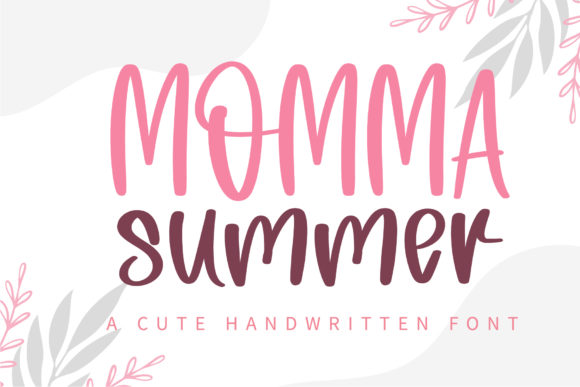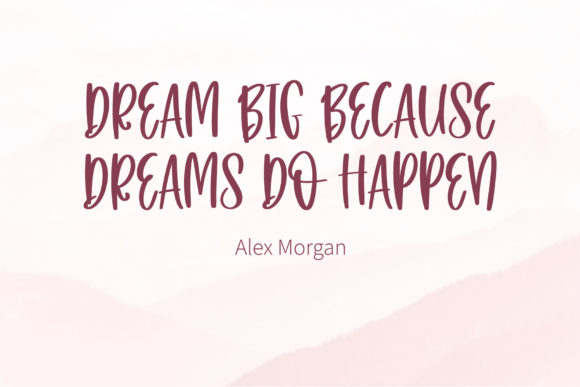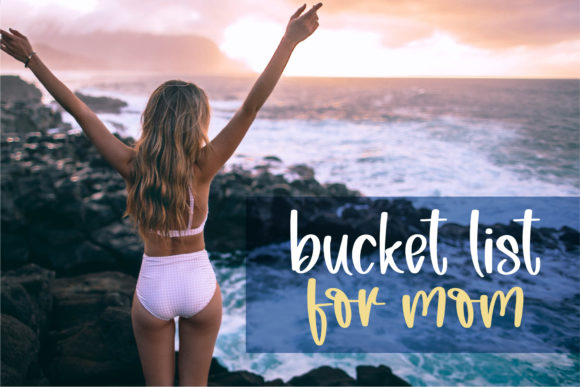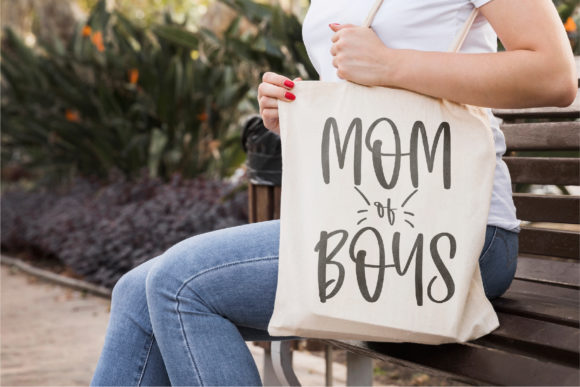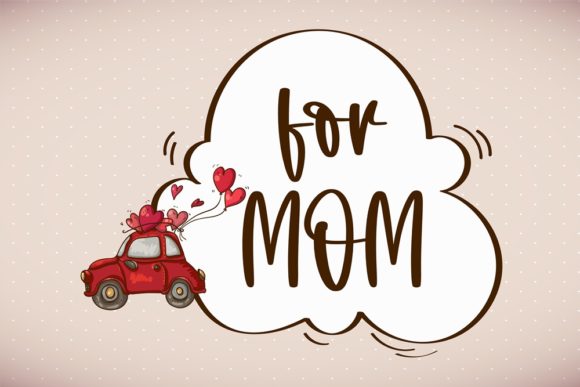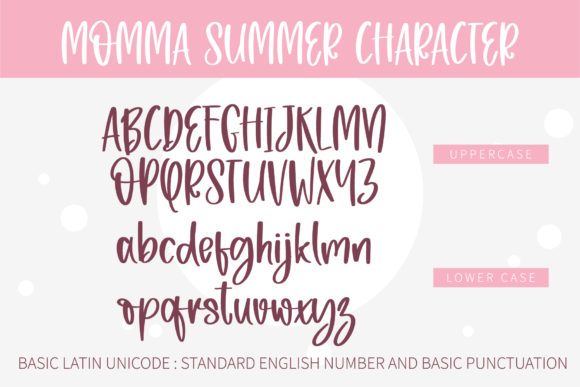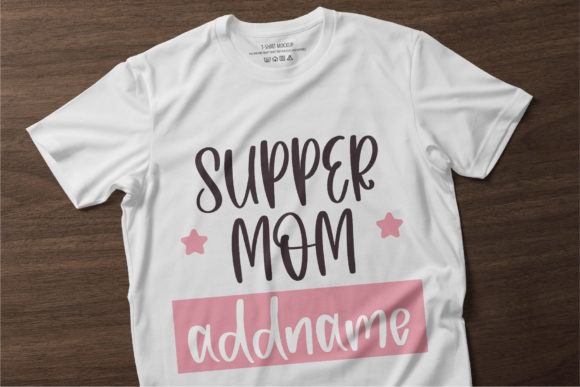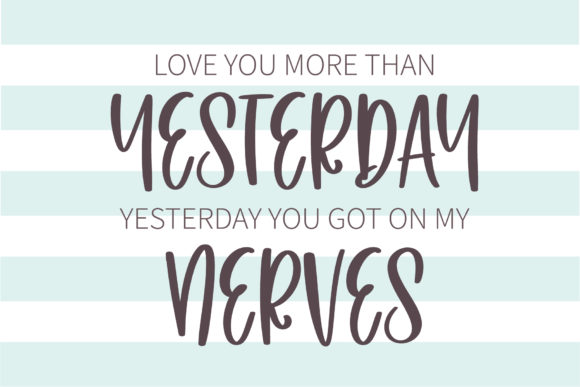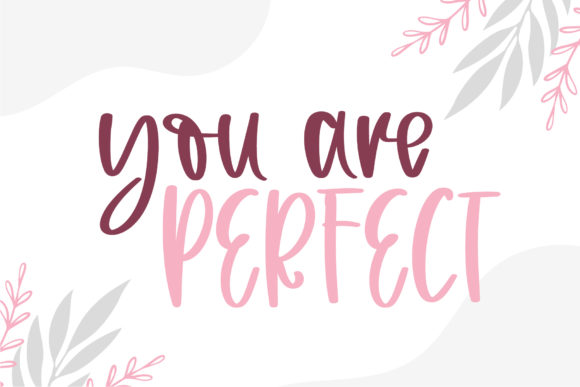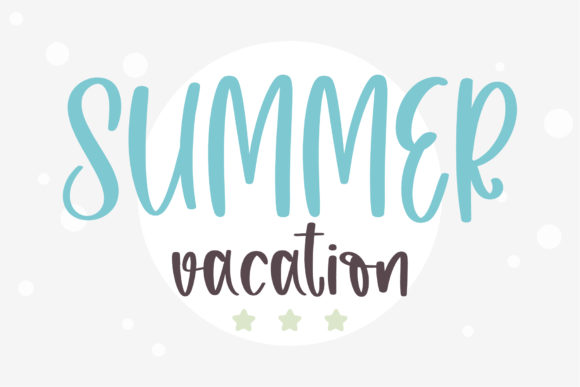
Momma Summer Font
About Momma Summer Font
Momma Summer is a cute and flexible handwritten font. Its natural and unique style makes it incredibly fitting to a large pool of designs. Have fun with this beautiful font and explore its endless variations.